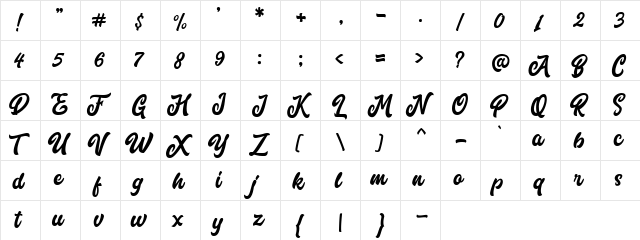
Marttabuck DEMO Regular
Design Context for Marttabuck DEMO Typeface
Marttabuck DEMO is a composed and adaptable typeface that performs quietly and consistently across a wide range of design contexts.